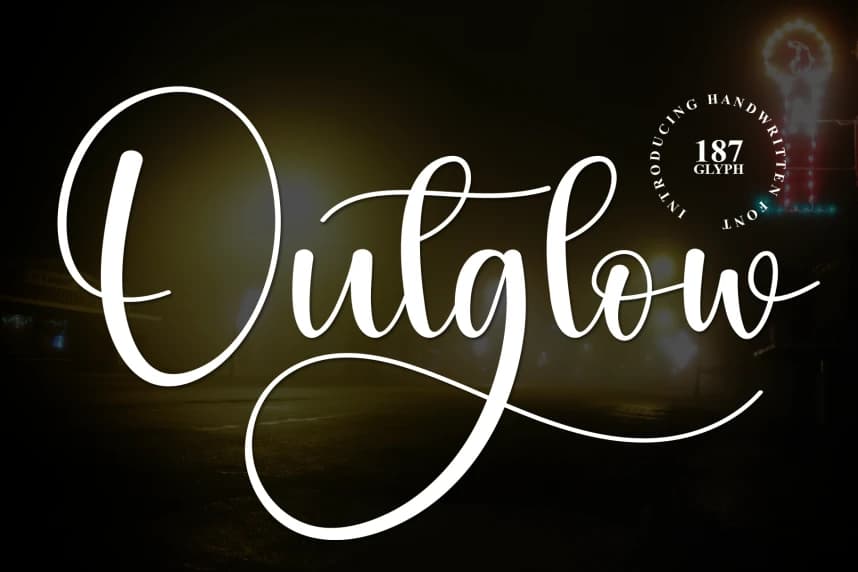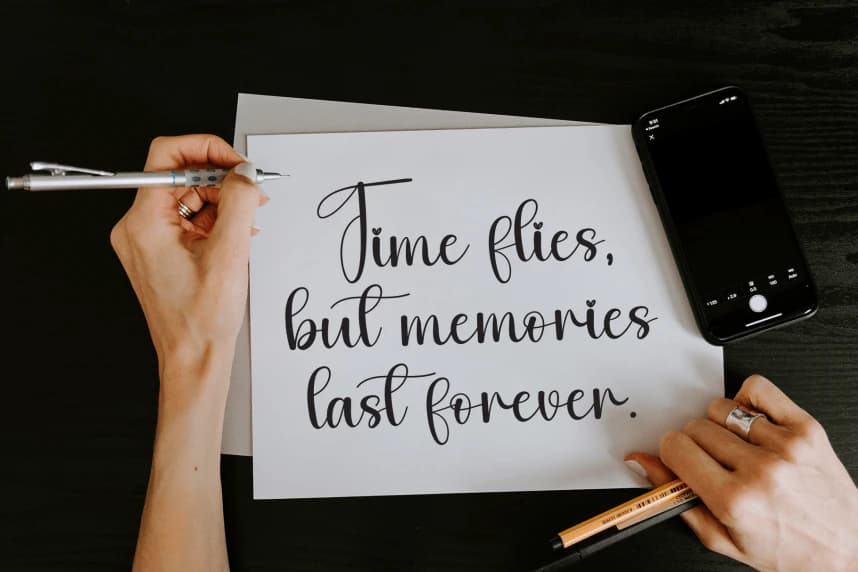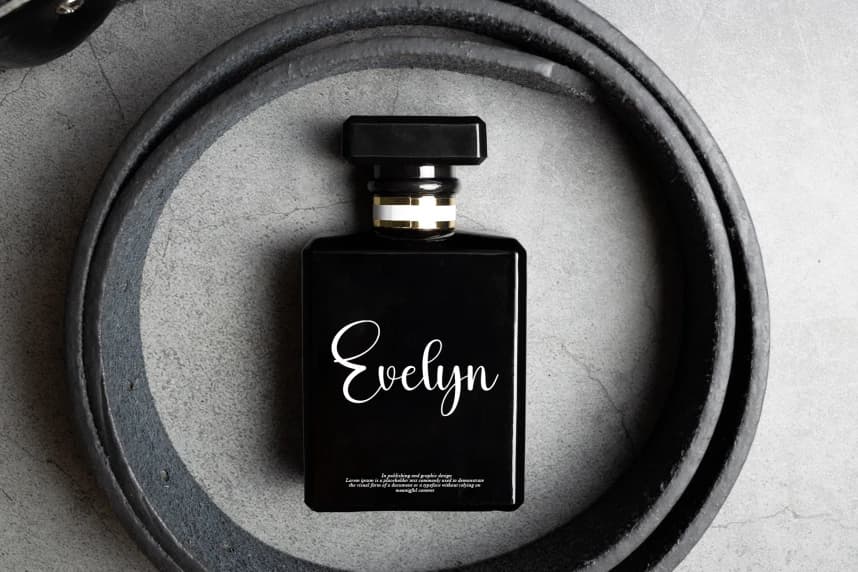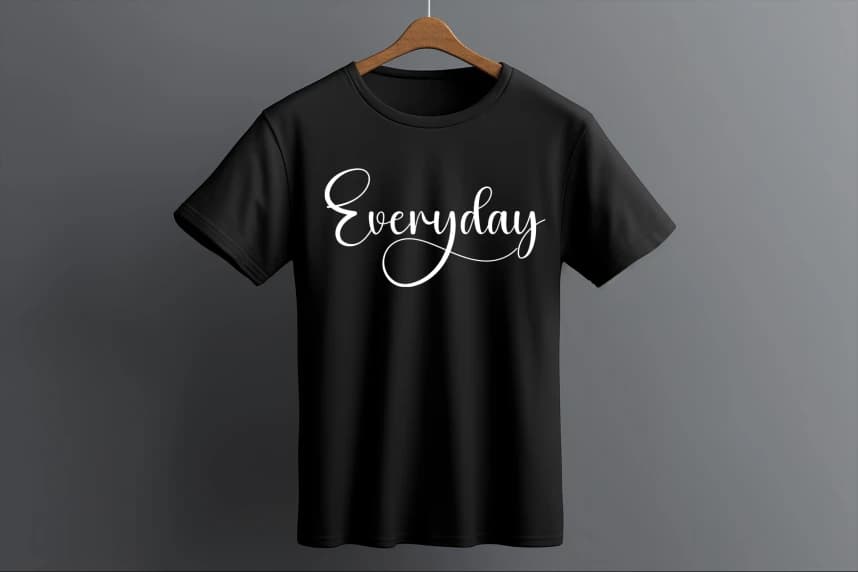
Outglow – Modern Handwritten Script Font
Outglow – Modern Handwritten Script Font is a sweet and friendly handwritten display font. Cute and fun, this font is ideal for writing wedding invitations, cards, or any other design that might need a playful touch!